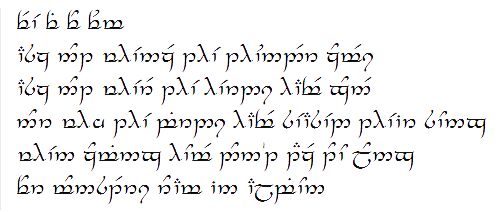
Tengwar Feanor
A modified version of Tengwar Annatar for use on a keyboard. Has symbols, upper and lowercase, and ligatures for automatically adding stems the vowels